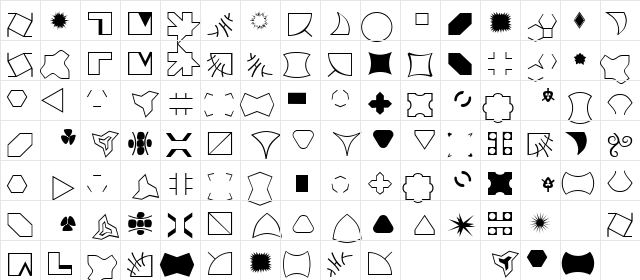
PatCzeckers Regular
Design Context for PatCzeckers
PatCzeckers is a composed and adaptable typeface that performs quietly and consistently across a wide range of design contexts.